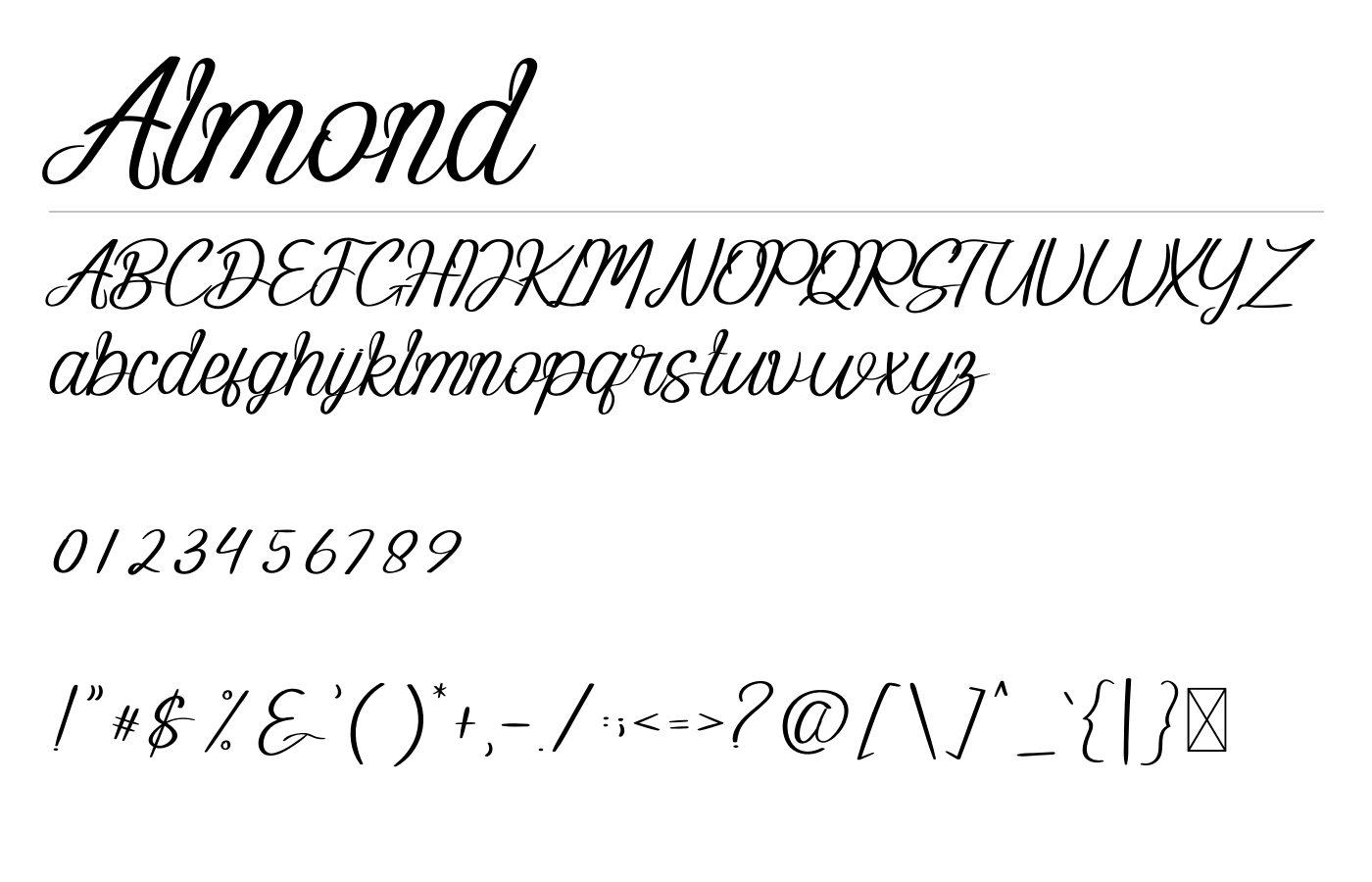
Almond is a delicate and elegant script font featuring smooth, flowing strokes with a subtle contrast in weight that gives it a graceful, handwritten feel. Its refined letterforms and slender profile make it ideal for sophisticated branding, invitations, and editorial design where a touch of timeless charm and personalization is desired. This font works best in decorative uses that require a stylish and approachable yet polished appearance.
Almond Font
About Almond Font